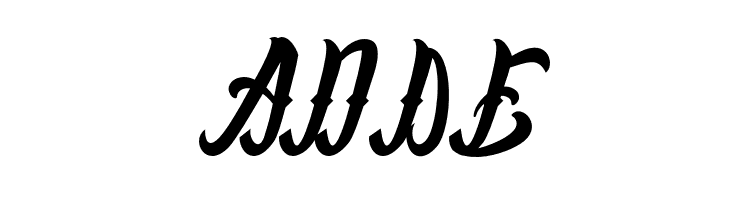
• KURAWAL
A modern, high-contrast font with sharp, angular serifs and a Gothic-inspired style.
A bold, angular font with sharp, jagged edges and a dynamic, aggressive style.
• lack-of-luck
• Lady
A gothic-inspired font with angular, detailed letterforms and a medieval aesthetic.
• LafayetScripts-Medium
• Lailaa